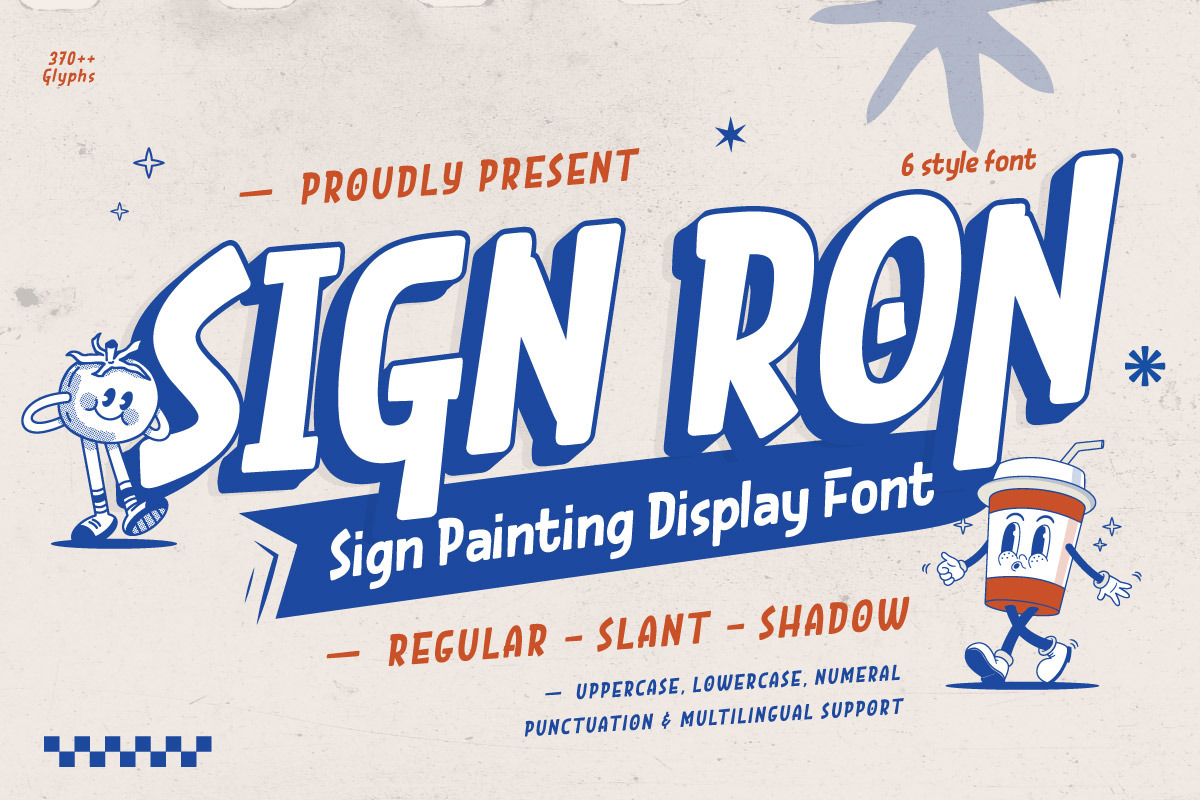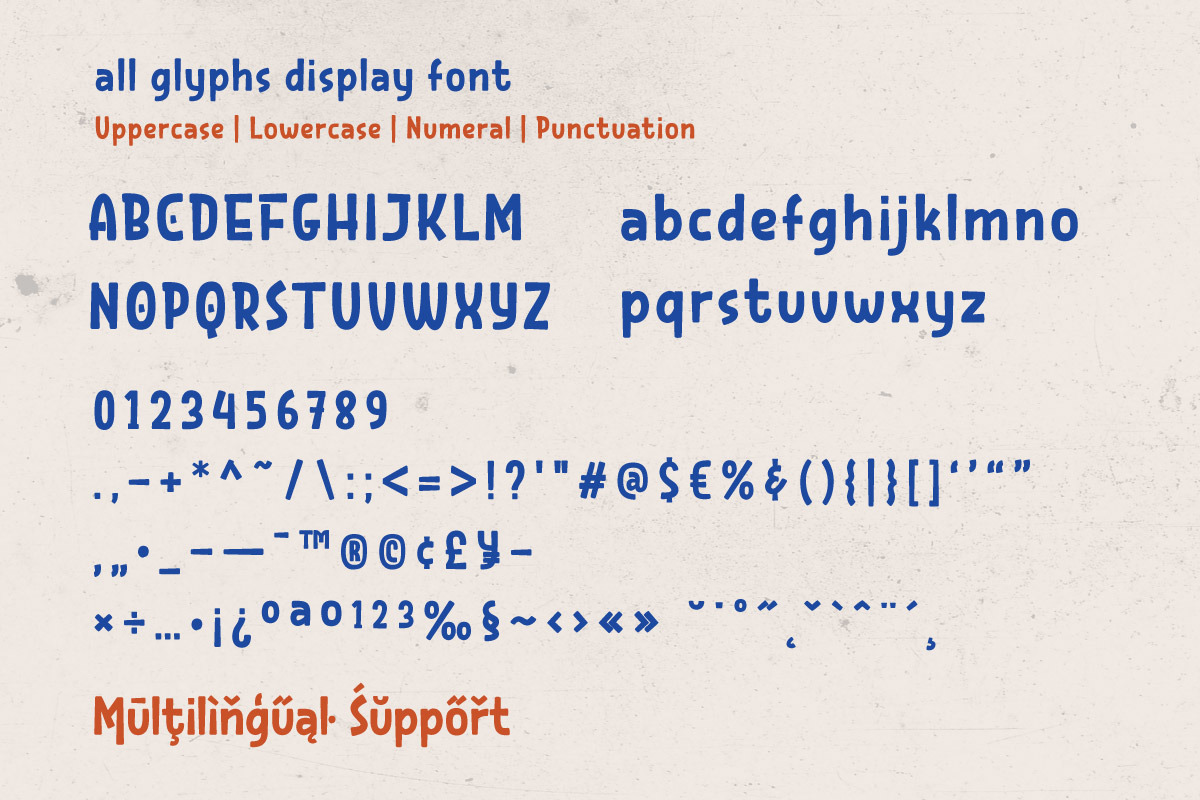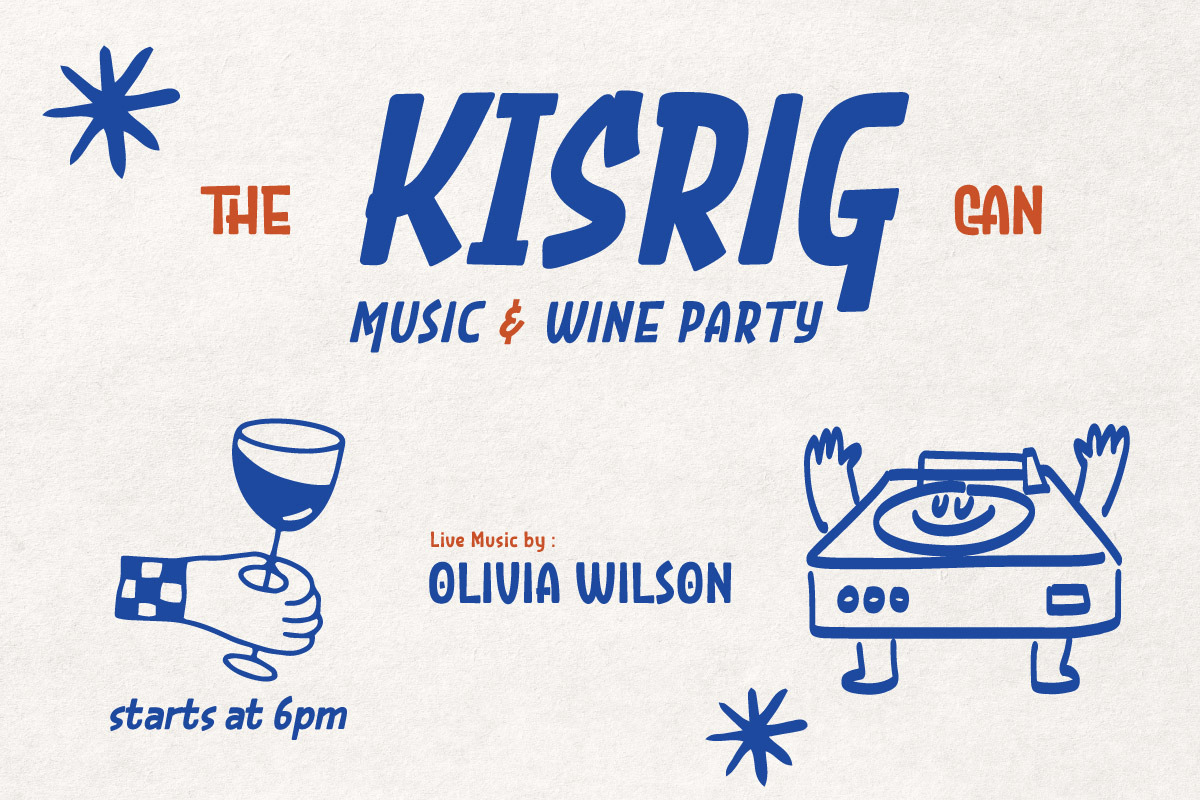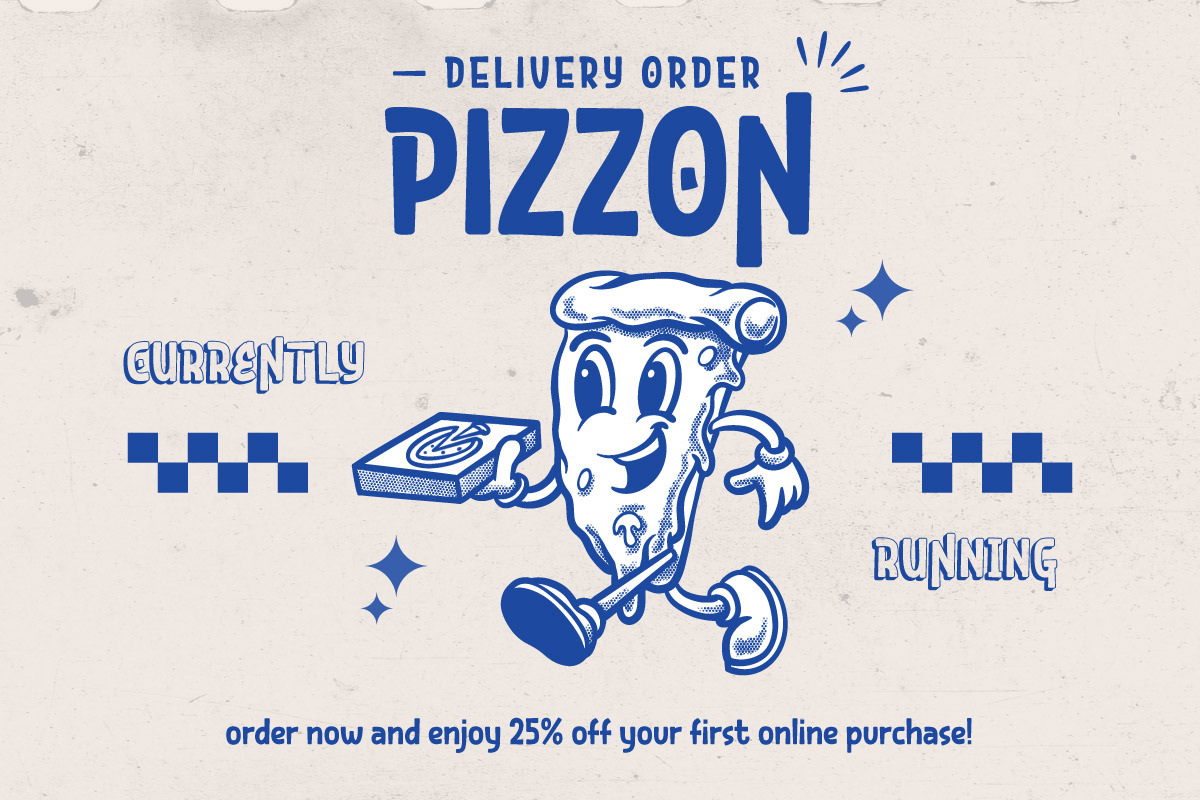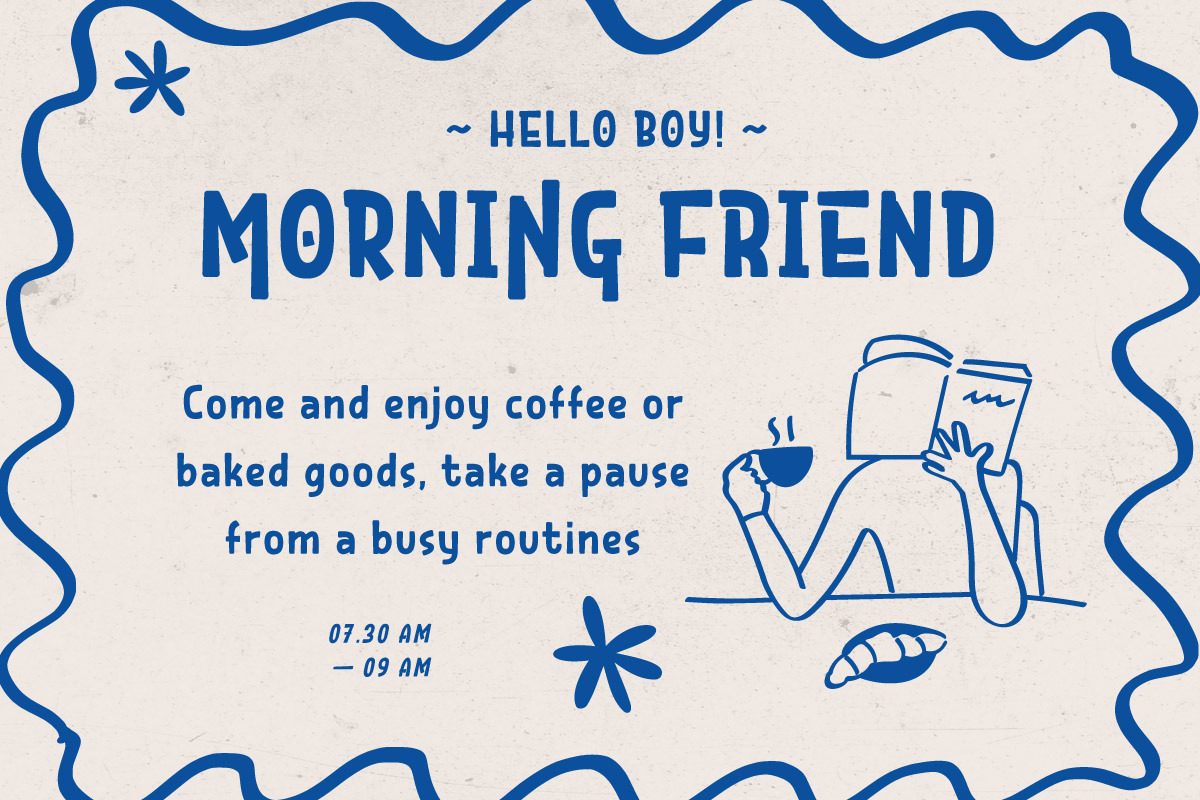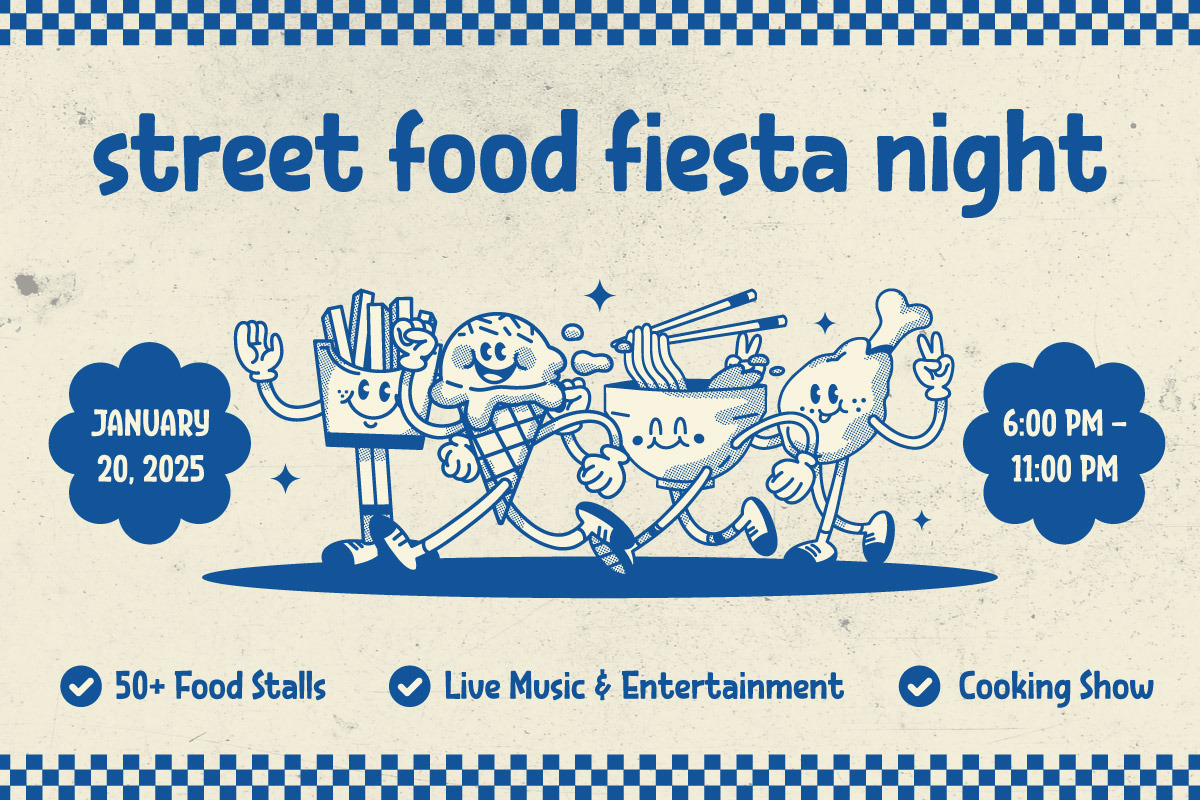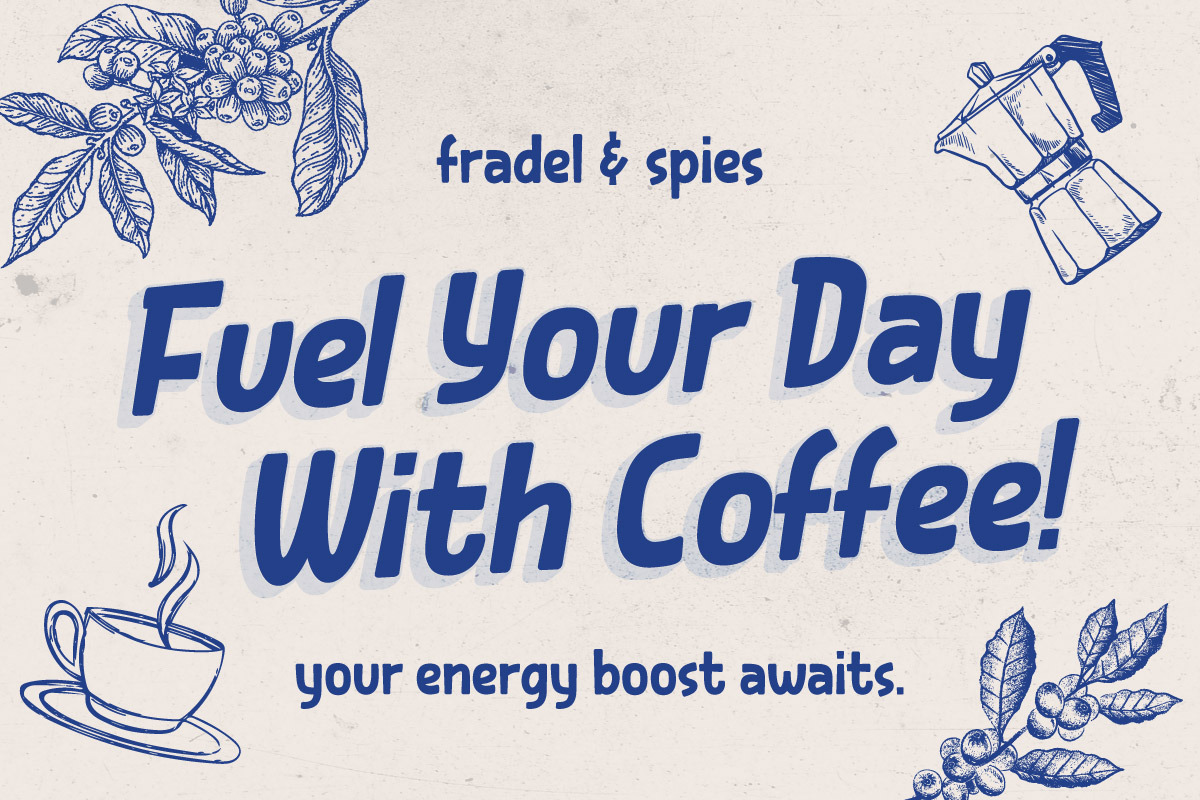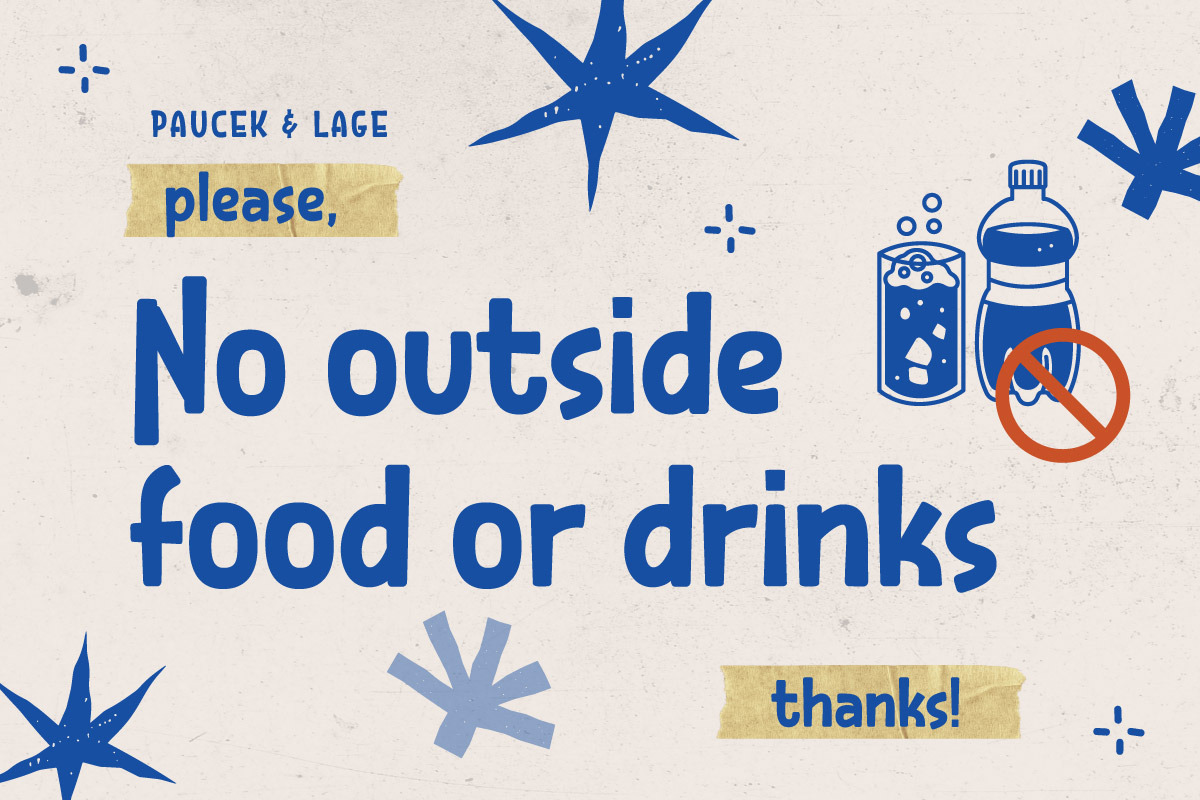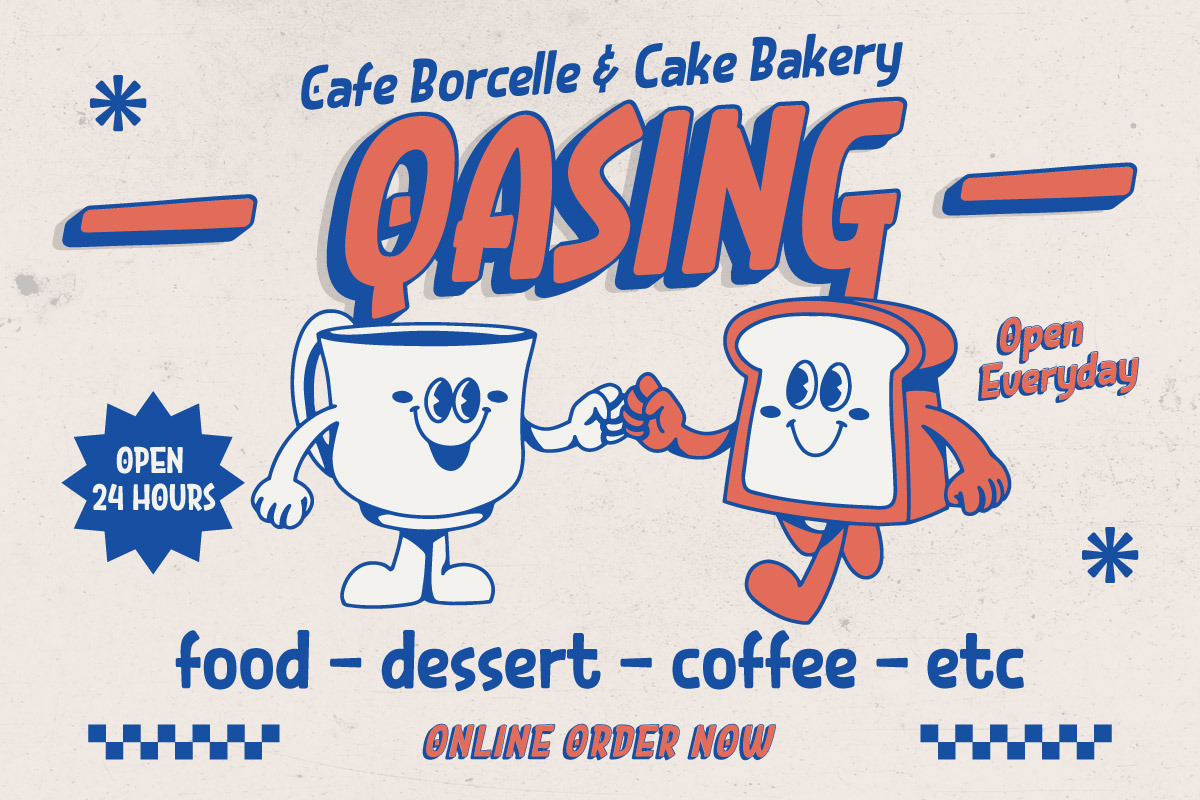
Sign Ron - Display Font
Introducing Sign Ron, a classic sign painting display font that brings vintage charm and bold craftsmanship to your designs. Featuring four versatile styles—Regular, Slant, Shadow Regular, and Shadow Slant—Sign Ron offers flexibility and layered creativity for a wide range of projects.
With its hand-painted feel, elegant curves, and impactful strokes, this font is perfect for storefront signs, café menus, logo designs, packaging, event posters, and retro branding. The shadow variations allow you to create depth and a standout 3D effect effortlessly.
Whether you’re aiming for a nostalgic vintage vibe or a modern retro twist, Sign Ron gives your typography an authentic sign painter’s touch. Perfect for designers who want to capture attention with bold, artistic flair.
- Fonts include Multilingual: Support for 85 languages Afrikaans, Albanian, Asu, Basque, Bemba, Bena, Breton, Catalan, Chiga, Cornish, Croatian, Czech, Danish, Dutch, Embu, English, Esperanto, Estonian, Filipino, Finnish, French, Friulian, Galician, Gusii, Hungarian, Indonesian, Irish, Italian, Kabuverdianu, Kalenjin, Kamba, Kikuyu, Kinyarwanda, Latvian, Lithuanian, Lower, Sorbian, Luo, Luxembourgish, Luyia, Machame, Makhuwa-Meetto, Makonde, Malagasy, Maltese, Manx, Meru, Morisyen, North, Ndebele, Norwegian Bokmål, Norwegian Nynorsk, Nyankole, Oromo, Polish, Portuguese, Quechua, Romanian, Romansh, Rombo, Rundi, Rwa, Samburu, Sango, Sangu, Scottish, Gaelic, Sena, Serbian, Shambala, Shona, Slovak, Slovenian, Soga, Somali, Spanish, Swahili, Swedish, Swiss German, Taita, Teso, Turkish, Upper Sorbian, Uzbek (Latin), Volapük, Vunjo, Walser, Zulu.